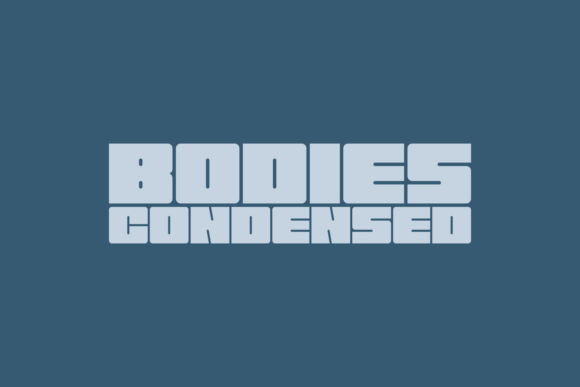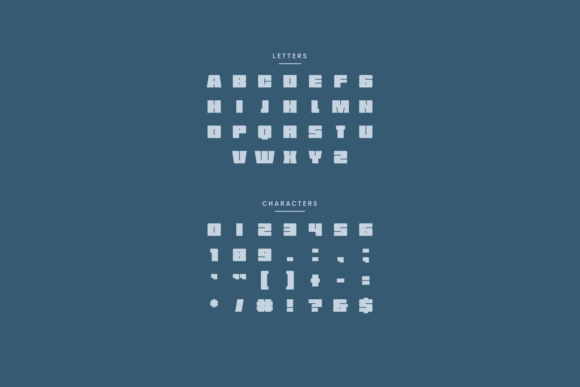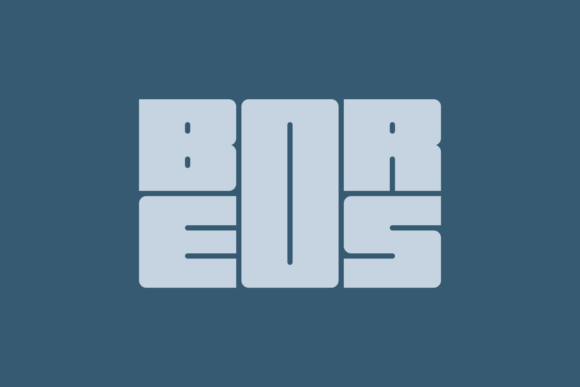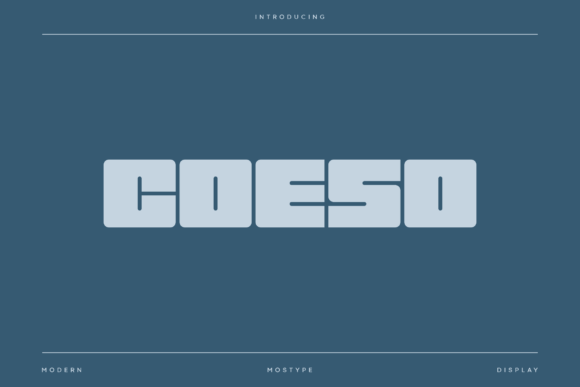
Introducing Coeso Font: The Ultimate Display Font for Modern Designs
In the world of design, typography plays a crucial role in conveying a message and making a lasting impression. A well-crafted font can elevate a design from ordinary to extraordinary, and that’s where Coeso Font comes in. This display font boasts bold and modern characteristics, making it perfect for designs that require a strong, firm, and clear aesthetic without sacrificing friendliness and approachability.
The Vision Behind Coeso Font
Coeso Font was created with a clear vision: to attract and engage audiences, and to support amazing designs that leave a lasting impact. The font’s designers aimed to craft a typeface that would not only grab attention but also convey a sense of modernity and approachability. Whether you’re working on a branding project, logo design, or any other visual material, Coeso Font is designed to help you achieve your goals.
Key Features of Coeso Font
So, what makes Coeso Font so special? Here are some of its key features:
- Bold and Modern Characteristics: Coeso Font features a bold and modern design that’s perfect for making a statement.
- Strong and Firm: The font’s sturdy design ensures that your message is conveyed with clarity and confidence.
- Clear and Friendly: Despite its boldness, Coeso Font remains approachable and friendly, making it perfect for designs that require a human touch.
- Versatile: Coeso Font is designed to work well in a variety of projects, including branding, logos, titles, headlines, banners, posters, screens, displays, digital ads, and more.
Use Cases for Coeso Font
Coeso Font is an incredibly versatile typeface that can be used in a wide range of design projects. Here are some examples of how you can use Coeso Font:
- Branding and Logos: Use Coeso Font to create a bold and memorable brand identity that stands out from the competition.
- Titles and Headlines: Coeso Font is perfect for creating attention-grabbing titles and headlines that draw readers in.
- Banners and Posters: The font’s bold design makes it ideal for creating eye-catching banners and posters that get noticed.
- Digital Ads: Coeso Font can help your digital ads stand out in a crowded online space and grab users’ attention.
Why Choose Coeso Font?
With so many fonts available, why choose Coeso Font? Here are just a few reasons:
- Unique Design: Coeso Font boasts a unique and distinctive design that sets it apart from other fonts.
- High-Quality: The font is crafted with attention to detail, ensuring a high-quality design that looks great in any context.
- Easy to Read: Despite its boldness, Coeso Font remains easy to read, making it perfect for designs that require a clear and concise message.
- Support for Multiple Languages: Coeso Font supports multiple languages, making it a great choice for global brands and designs.
| Author | adabsubandi |
In conclusion, Coeso Font is an exceptional display font that offers a unique blend of boldness, modernity, and friendliness. Its versatility, high-quality design, and ease of use make it an excellent choice for designers and crafters looking to elevate their designs. Whether you’re working on a branding project, logo design, or any other visual material, Coeso Font is sure to help you create a lasting impression.